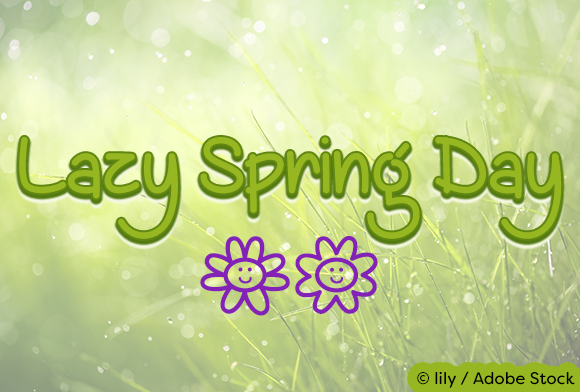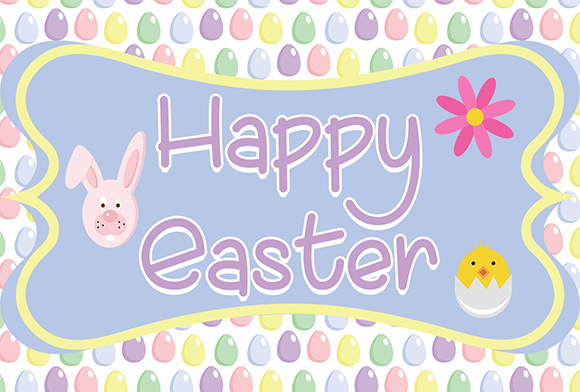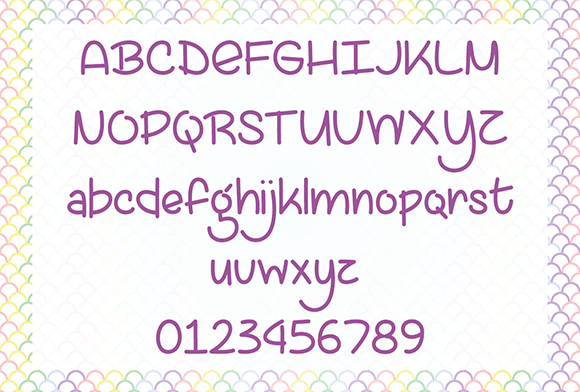
Lazy Spring Day Font
About Lazy Spring Day Font
About the Lazy Spring Day Font
The Lazy Spring Day font is a smooth hand-drawn font created by Misti from Misti’s Fonts. The characters in this font have a playful feeling which makes it the ultimate spring and summer font.